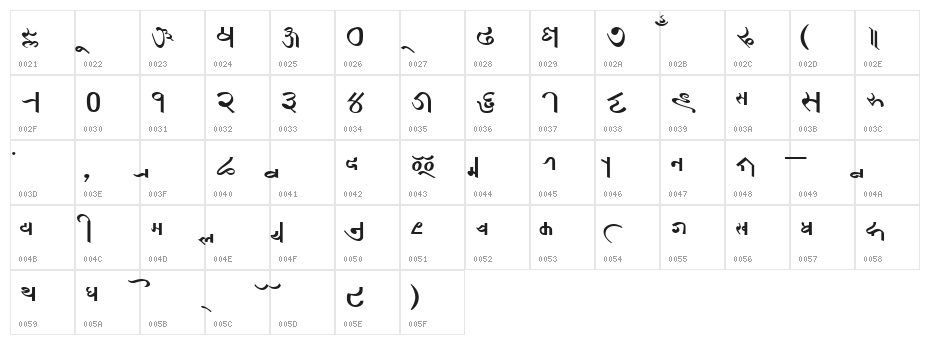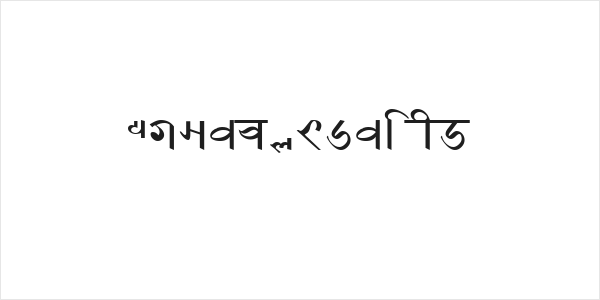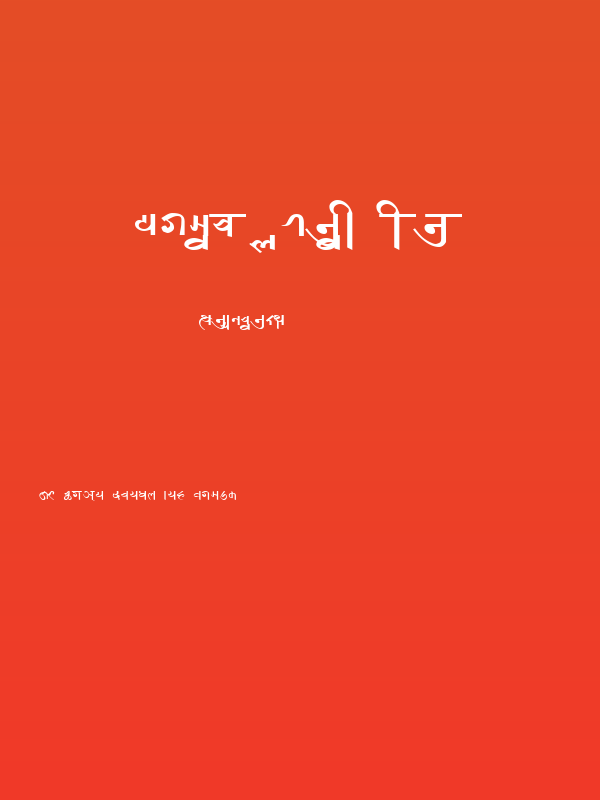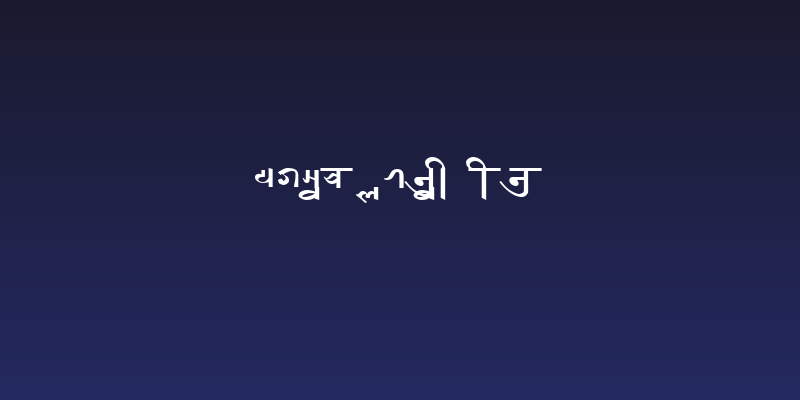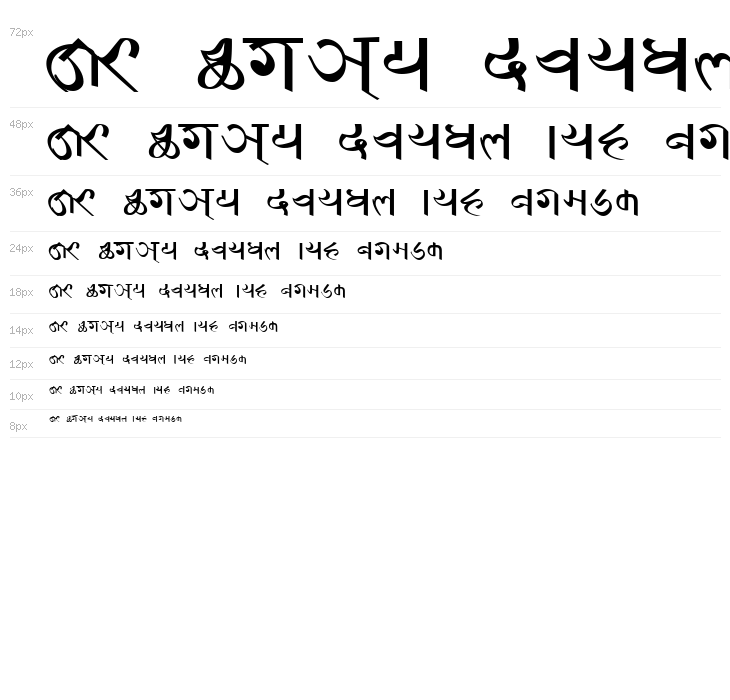
Kumari Nepal Lipi Font
Kumari Nepal Lipi Description
This font is a decorative script that features intricate and flowing characters, reminiscent of traditional calligraphy. The characters are bold and exhibit a high contrast between thick and thin strokes, giving them a dynamic and elegant appearance. The script is ornate, with many of the characters featuring unique flourishes and curves that add to its decorative nature. The spacing between characters is relatively tight, which enhances the cohesive look of the text when written out. This font is particularly suitable for projects that require a touch of cultural or historical flair, as its style evokes a sense of tradition and artistry.